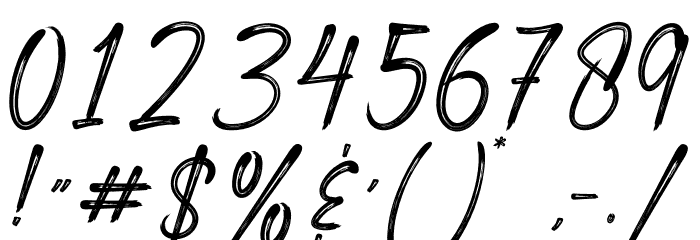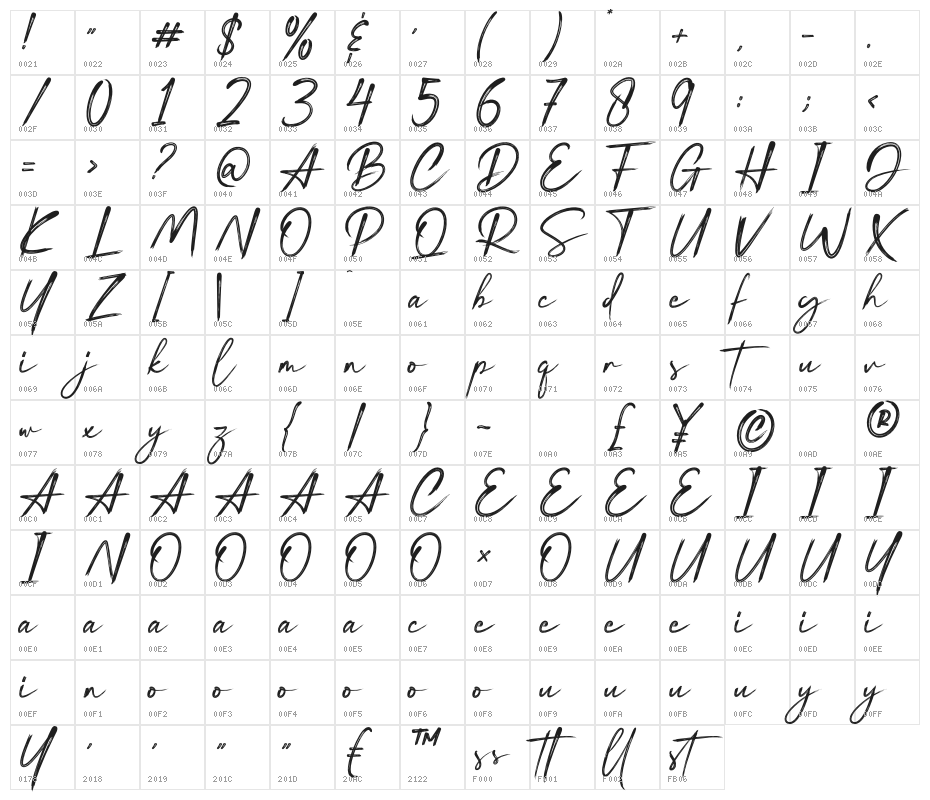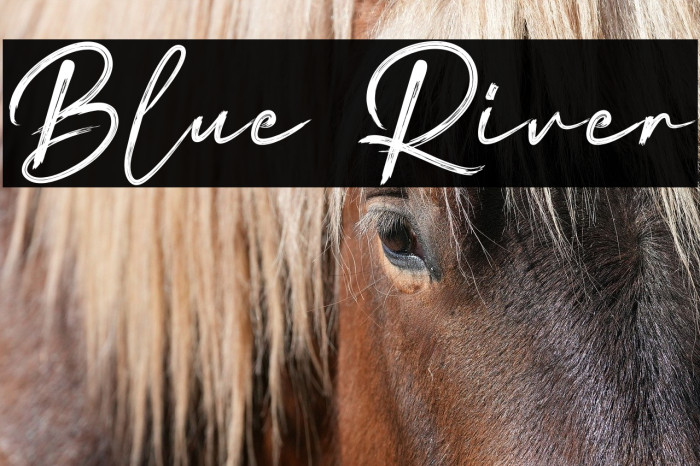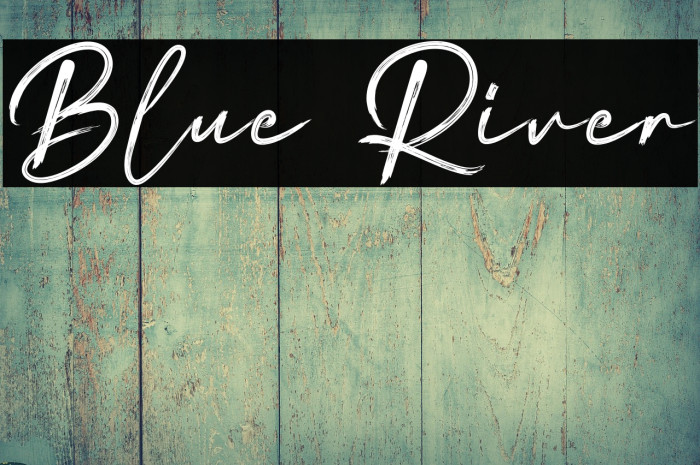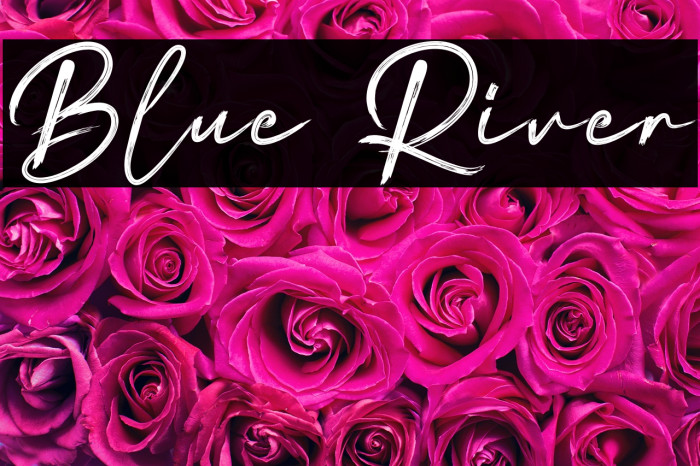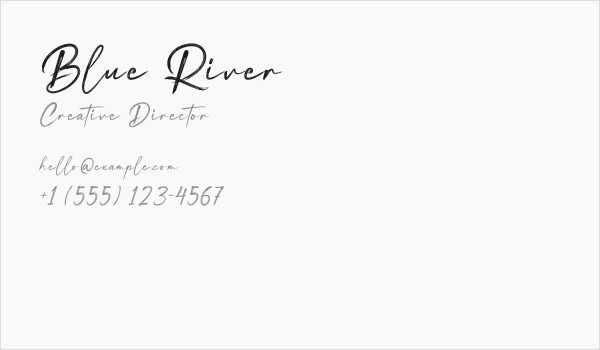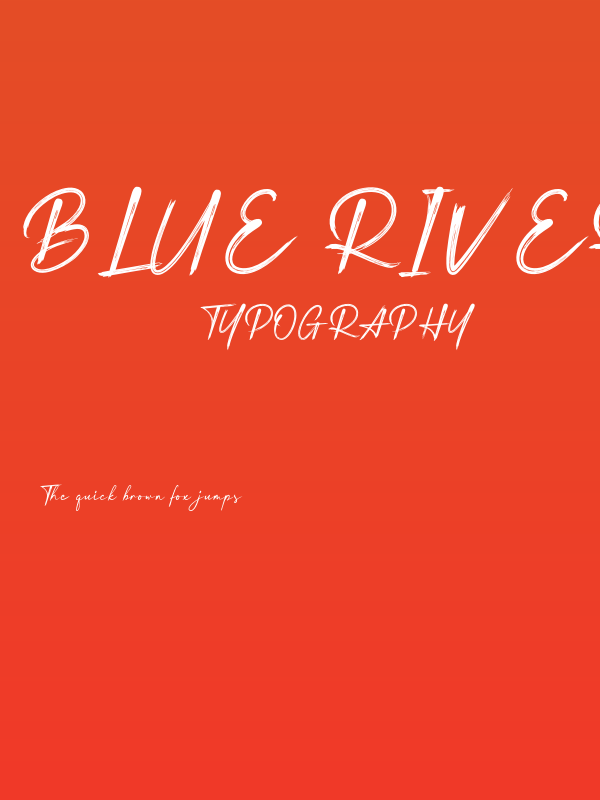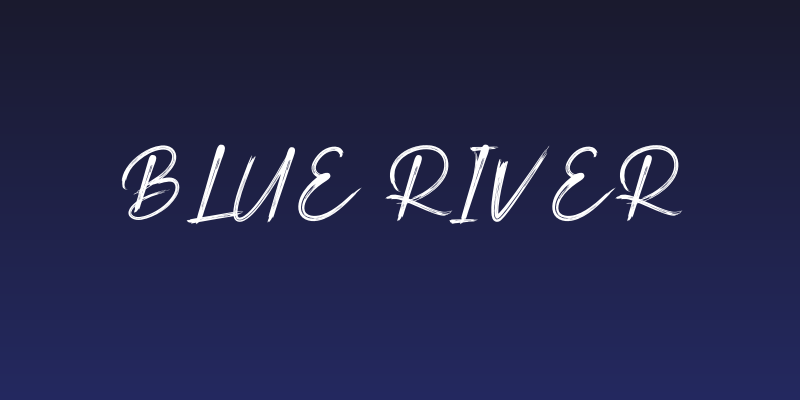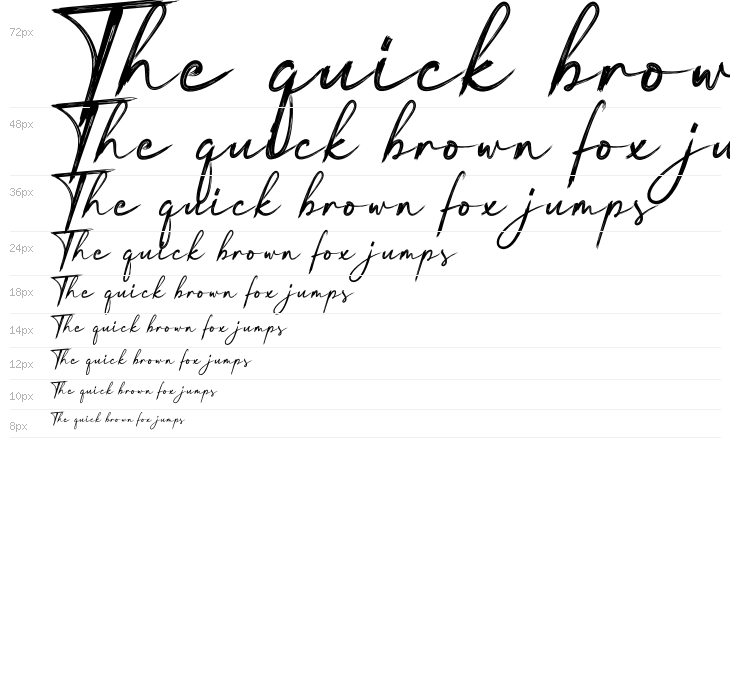
Blue River Font
Blue River Description
This font exudes a dynamic and expressive style, characterized by its fluid, handwritten script appearance. The letters are elegantly crafted with a natural flow, featuring varying stroke widths that add a sense of movement and energy. The uppercase letters are bold and slightly slanted, while the lowercase letters maintain a consistent rhythm with graceful loops and curves. The numerals and special characters complement the alphabet with a similar artistic flair, making this font suitable for creative and informal applications.
| Proposed Projects | Ideal for wedding invitations, greeting cards, branding, and artistic projects that require a personal touch. |